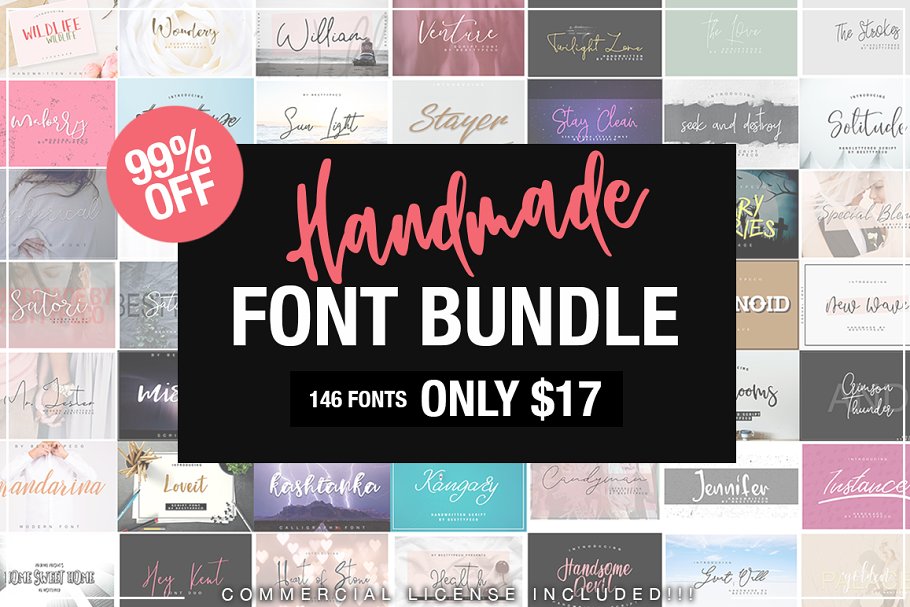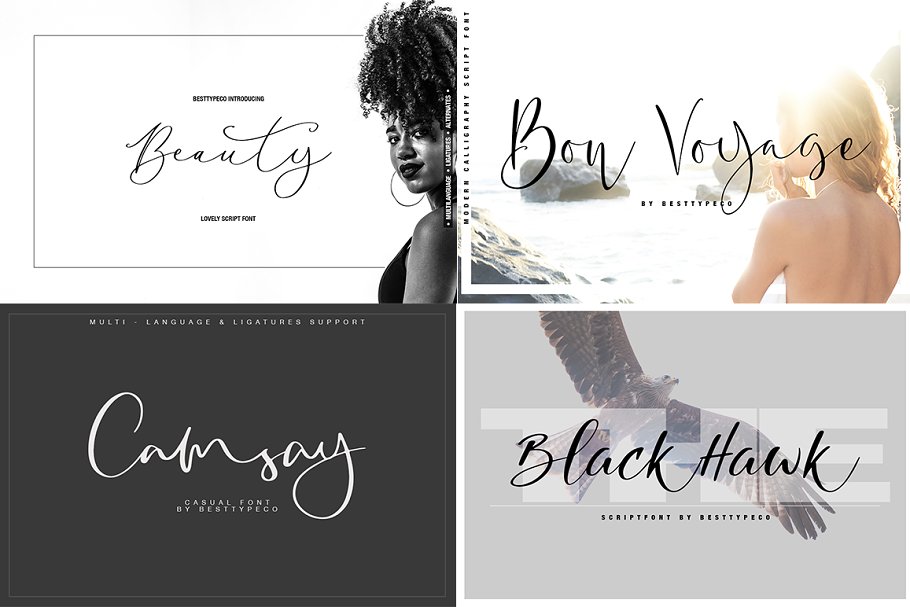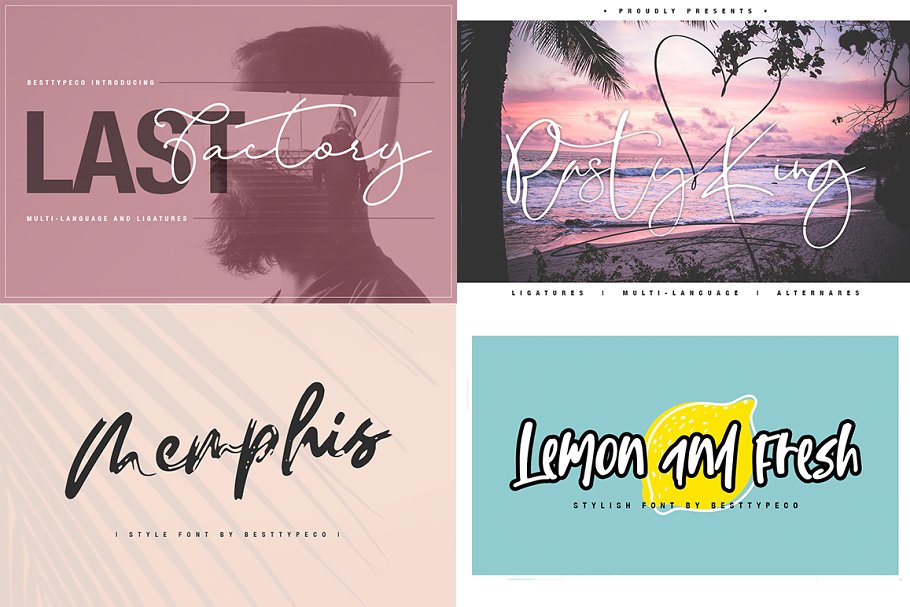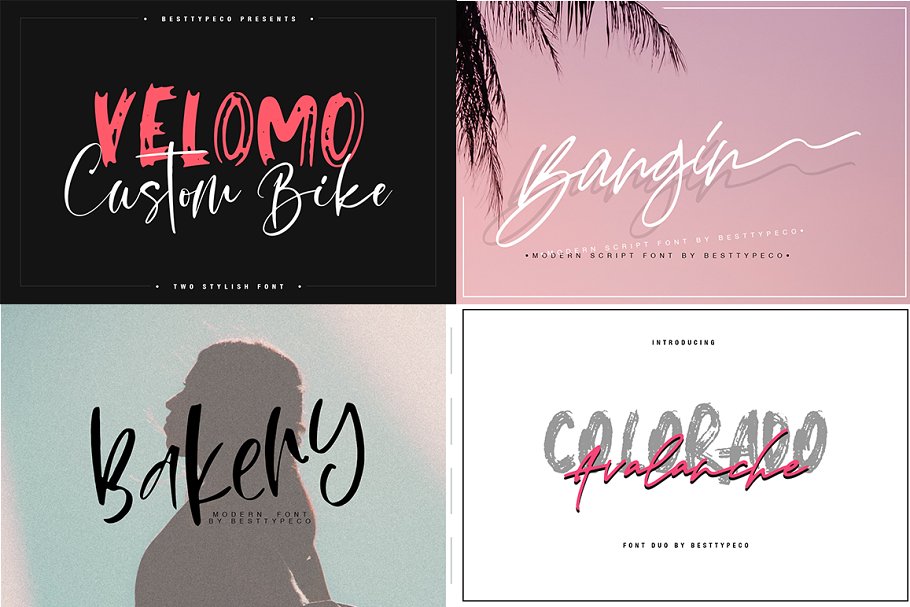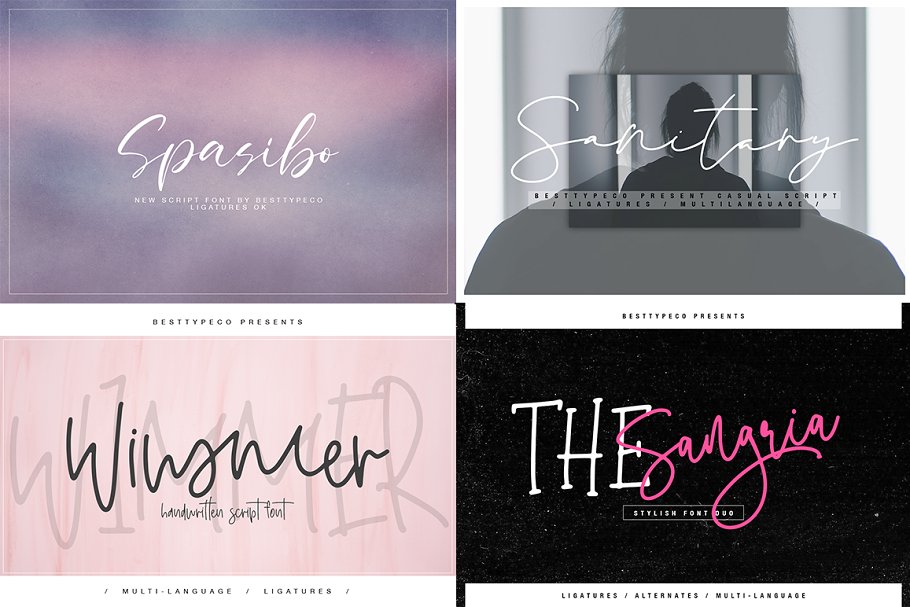
146 IN1 FONT BUNDLE by Besttypeco !!! FREE UPDATE !!!!TIME LIMITED!!!ALL MY FONTS here’s your chance to get a large number of best-selling fonts, Font bundle included :AlternatesLigaturesMulri-language (~40 Fonts)This package is Normal price $ 1650, Now get all 146 fonts with super low price for $ 17 only, with limited time, Do not miss it, take it today!This package contains 146 Font Scripts
Includes some best-selling fonts, All fonts is perfect for branding, headings, signatures, logos, blog, wedding invitations, t-shirts, letterhead, merchandise, signage, lable, news, posters, badges etc, If you need help or advice, please contact me by e-mail besttypeco@gmail